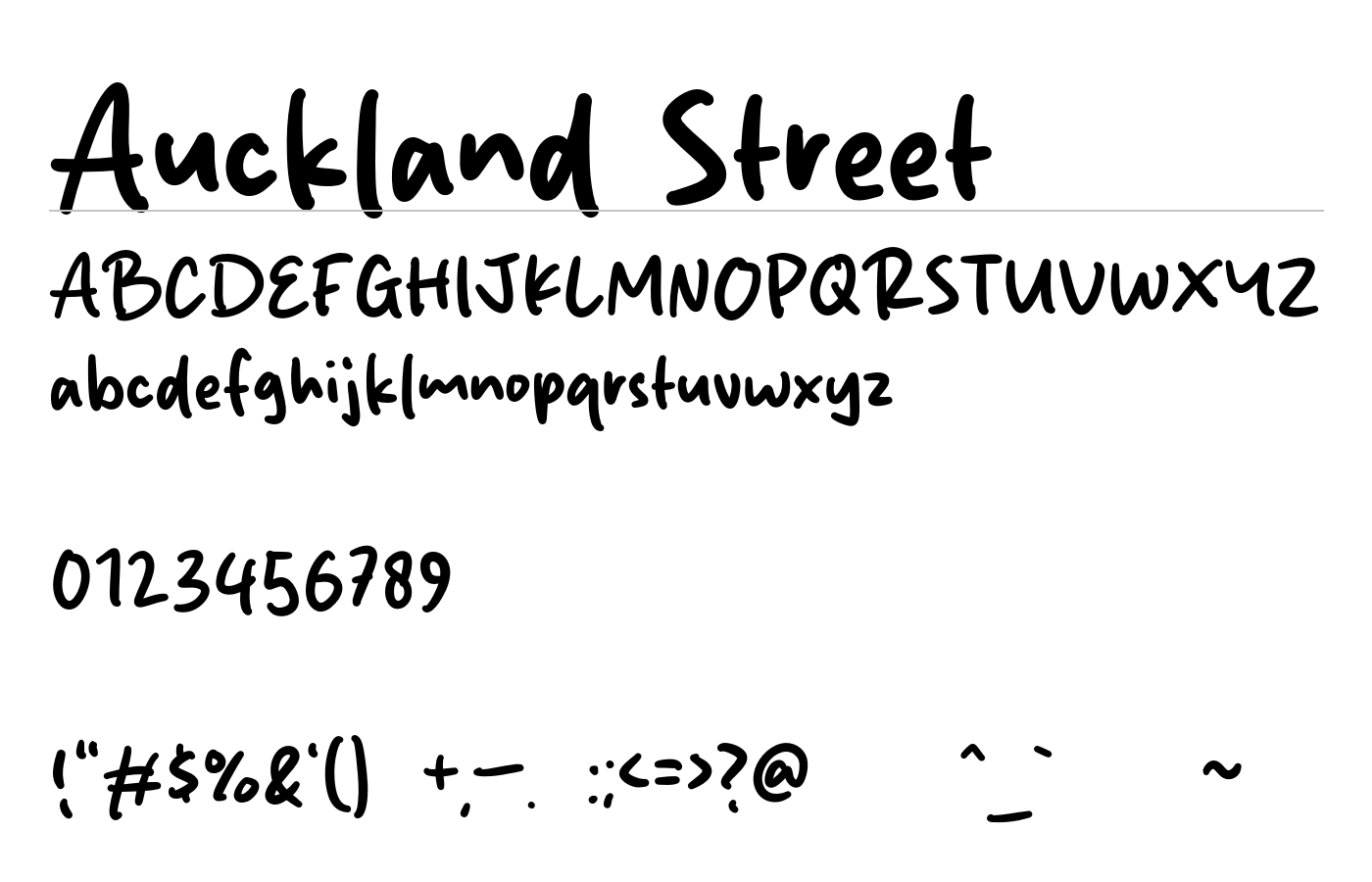
Auckland Street is a lively and casual handwritten font that feels friendly and approachable. Its slightly uneven strokes and playful letter shapes give it a natural, personal touch perfect for informal designs, making it ideal for branding, invitations, and creative projects that want a warm, human feel. This font works well for headlines, logos, and social media where a spontaneous, friendly vibe is desired.
Auckland Street Font
About Auckland Street Font
| Font family | Auckland Street Font |